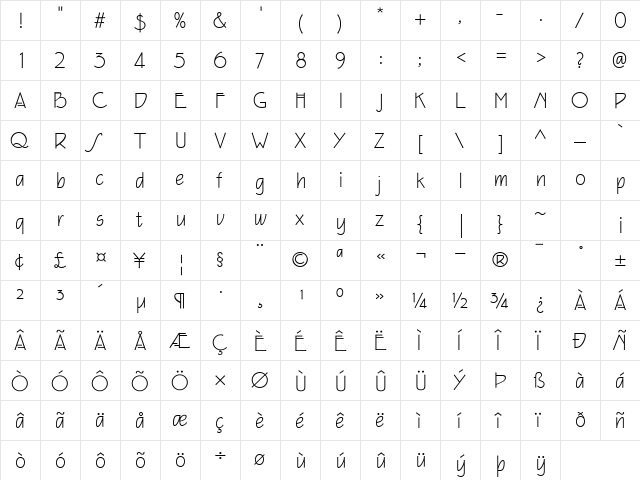
EaglefeatherInformal Light
Design Context for EaglefeatherInformal Typeface
EaglefeatherInformal offers clean, dependable letterforms without strong stylistic allegiance, making it a practical choice for designers who need flexibility. Its slender proportions lend an understated elegance to any composition.